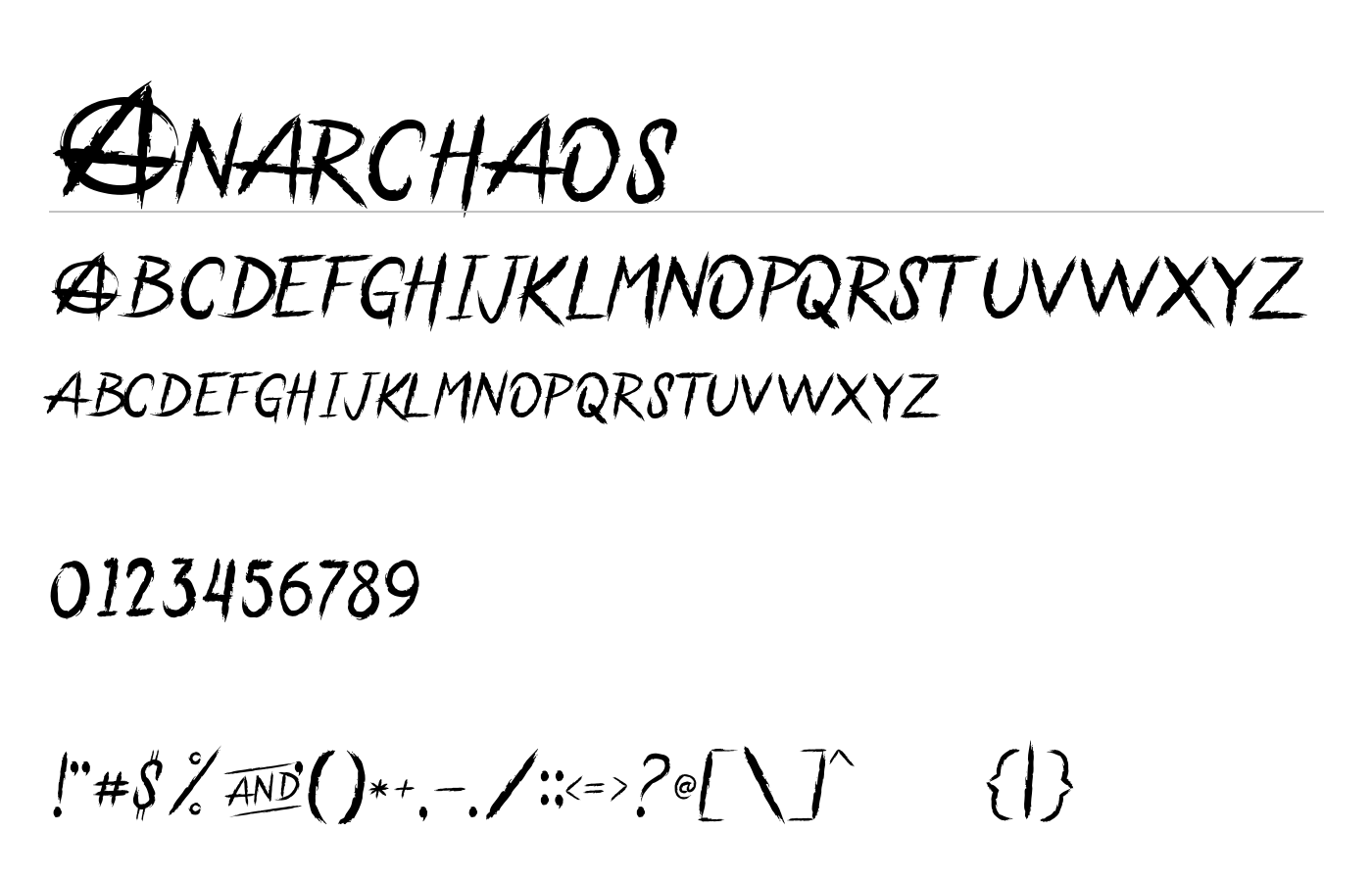
Anarchaos is a dynamic, brush-stroke styled sans serif font with a rough, edgy appearance that conveys rebellious energy and raw creativity. Its irregular, hand-drawn letterforms and sharp, jagged edges make it ideal for designs seeking a grunge or punk vibe, perfect for alternative branding, posters, or expressive headlines that stand out with personality and attitude. This font captures a chaotic yet artistic feel, lending itself well to projects aiming for an unconventional and bold statement.
Anarchaos Font
About Anarchaos Font
| Font family | Anarchaos Font |